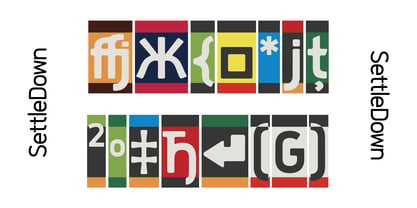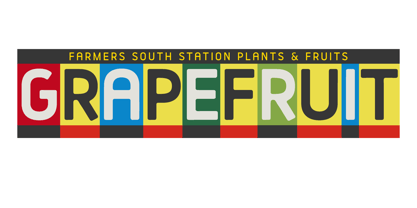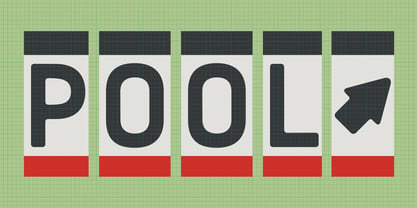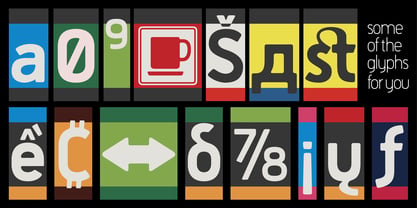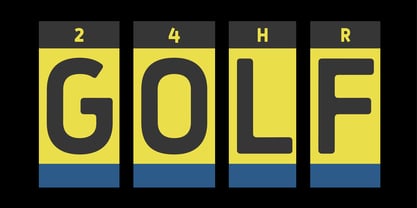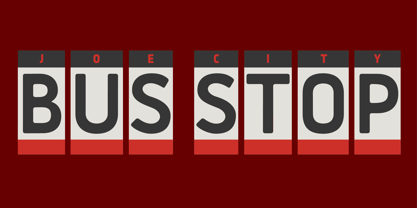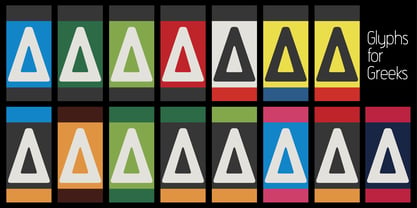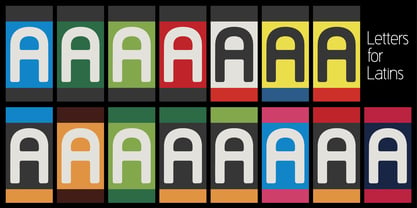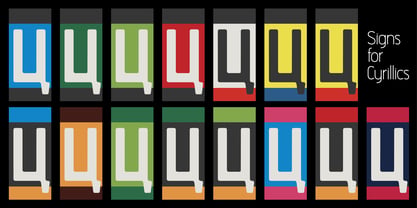
SettleDown
La famille de polices SettleDown a été conçue par Gary Jaffe et publiée par Settled Font Foundry. SettleDown contient 14 styles et options de package familial. En savoir plus sur cette famille
SettleDown is a family of 15 COLRv1 fonts. Using the Bold face of Settled, it is comprised of Latin 1, Latin 2, Greek, and Cyrillic glyphs, with various numerics. Arrows, ligatures, and image glyphs are included. Each face is identical but for the change of background color.
Display fonts are the favored form, useful for signage (business, building, billboard, etc), A-frames, news and advertising headlines, brochures, book jackets, menus, and the like. These fonts may appeal to fabric manufacturers for uses as monogramming patterns for t-shirts, ties, jewelry, skirts; blankets, table cloths; bedsheets and pillowcases, children’s alphabet wood blocks and wood carving in furniture (table tops)...use your own ideas.
Settled CAPS and CLR fonts are not accurately displayed until companies and apps update to support SVG color fonts. ADOBE and ADOBE APPS, the intended design space for our fonts, DO SUPPORT SVG COLOR FONTS. So, we will show you the glyphs in PNGs on our page. for now. Display fonts are the favored form, so useful for signage (business, building, billboard, etc), A-frames, news and advertising headlines, brochures, book jackets, menus, and the like.Graphic design has been a gift to me, to pay my way, and to enjoy working. At first using photography in conjunction with vector drawing, letterforms soon became the source of great pleasure as well as painstaking work. For me, letterforms add both beauty and function to life.